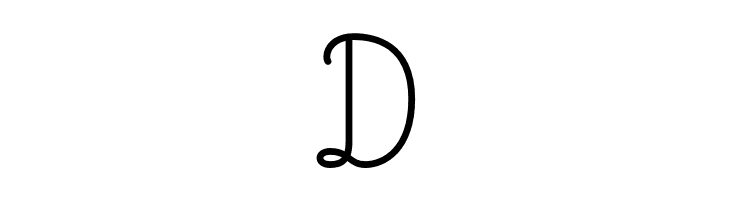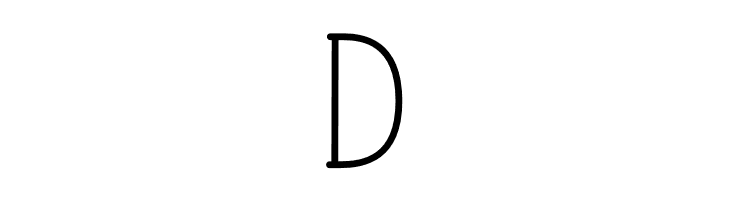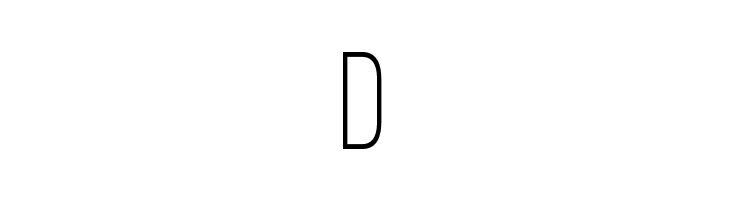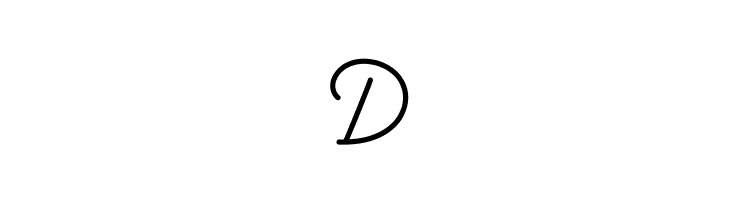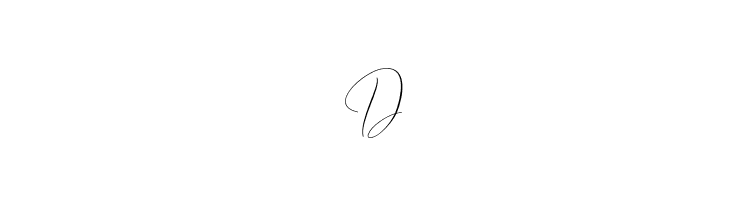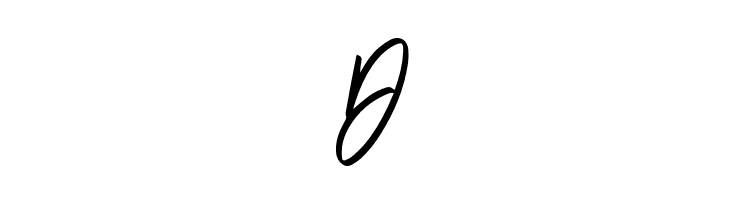
A playful, handwritten-style font with rounded, smooth characters.
A playful, handwritten script font with fluid, connected letters.
A modern, playful sans-serif font with clean lines and rounded edges.
A versatile font combining clean uppercase letters with playful, handwritten lowercase characters.
A modern, tall, and narrow sans-serif font with a clean and streamlined appearance.
An elegant, cursive handwritten font with flowing, interconnected strokes.
A lively, handwritten cursive font with a dynamic and expressive style.
A lively script font with a fluid, handwritten style and moderate stroke contrast.
A graceful, handwritten script font with elegant curves and a calligraphic style.
A fluid and elegant handwritten script with medium contrast and decorative flourishes.